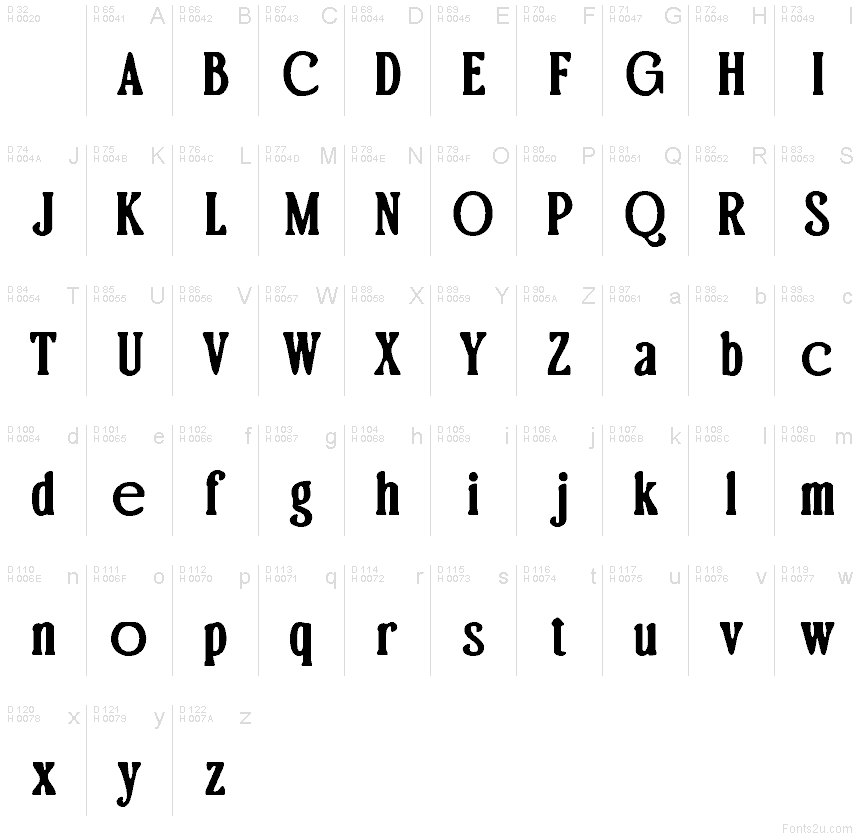
CS Philea Drawn font by Craft Supply Co. is a free hand-drawn serif font. Built on the CS Philea family’s classic bones, it stands out with gently irregular outlines, soft inked edges, and a subtle sway that feels sketched rather than engineered. The strokes are sturdy yet tactile, with rounded wedges and warm contrast that give headlines a crafted, human touch without losing readability.
This free font shines on boutique branding, artisanal packaging, café menus, poster headlines, book covers, and lifestyle social graphics. Using CS Philea Drawn adds character and approachability while keeping layouts composed. Pair it with a crisp geometric sans for body copy, or keep hierarchy clean by setting it larger with generous letterspacing.